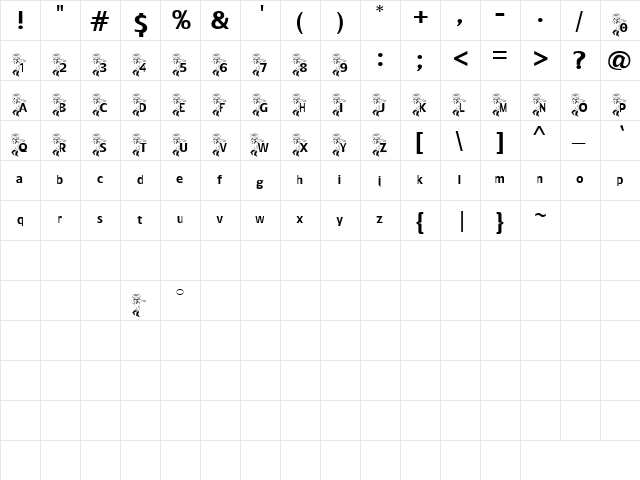
FrogBootScooter Regular
Design Context for FrogBootScooter Typeface
FrogBootScooter is a composed and adaptable typeface that performs quietly and consistently across a wide range of design contexts.